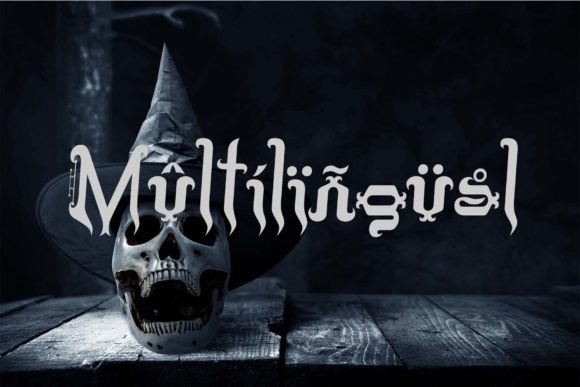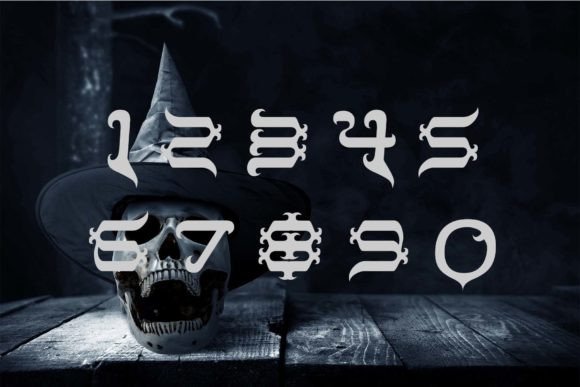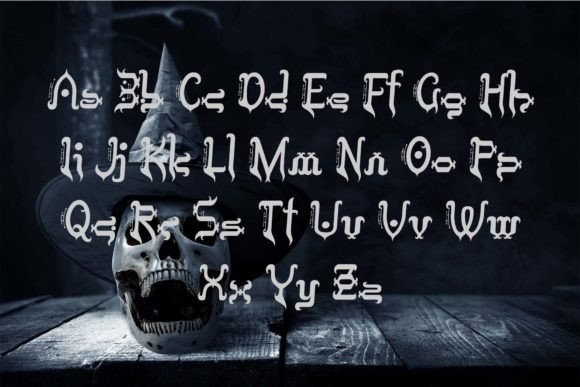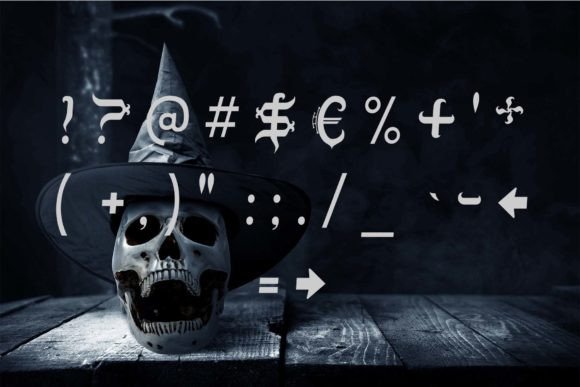
The Devil is in the Details: Unleashing the Power of Devil’s Heart Font
I’ll never forget the time I was working on a Halloween-themed project for a client, and I just couldn’t find the right font to capture the spooky essence. The design was almost complete, but it was missing that one crucial element to make it pop. That’s when I stumbled upon Devil’s Heart Font, and let me tell you, it was love at first sight! 💀
This “dangerous” and slightly spooky display font has become a staple in my font library, and I’m excited to share its awesomeness with you. Whether you’re a designer, crafter, or creative hobbyist, Devil’s Heart Font is sure to elevate your creations.
Honest Review: The Good, the Bad, and the Quirky
- ✨ Unique and eye-catching design that’s perfect for making a statement
- ✅ Highly versatile and can be used for various projects, from Halloween-themed designs to bold typography
- ⚡️ Excellent for creating attention-grabbing headlines, titles, and captions
- 💻 Works beautifully in both digital and print formats
While Devil’s Heart Font is an amazing addition to any font library, there are a few things to keep in mind:
- 🤔 The font can be a bit tricky to read in smaller sizes, so it’s best used for display purposes
- ⚠️ Some characters may not work well in certain contexts, such as body text or long paragraphs
- Experiment with OpenType features, such as glyphs and stylistic alternates, to add more flair to your text
According to its creators, Devil’s Heart Font was inspired by the darker side of design, with a dash of Victorian elegance. The font’s unique design is meant to evoke a sense of mystery and intrigue, making it perfect for designers looking to add a touch of danger to their creations.
Q: Is Devil’s Heart Font suitable for body text?
A: While Devil’s Heart Font is amazing for display purposes, it’s not the best choice for body text due to its unique design and potential readability issues.
Q: Is Devil’s Heart Font available in different weights or styles?
A: Currently, Devil’s Heart Font comes in a single weight, but its versatility and range of OpenType features make it an excellent choice for various design applications.